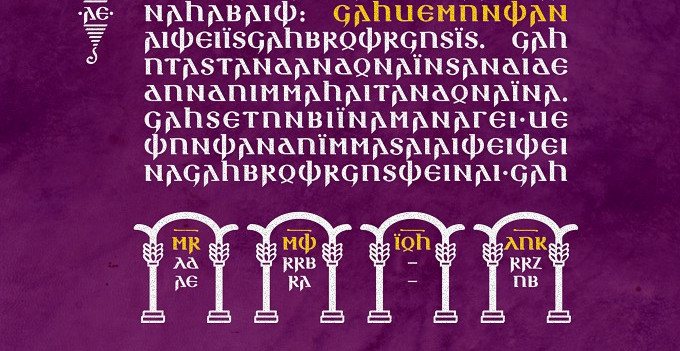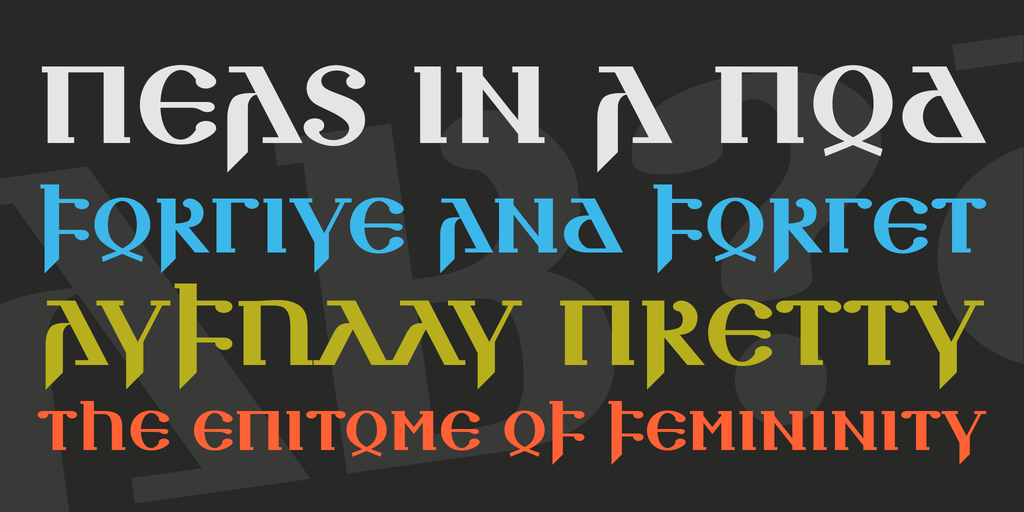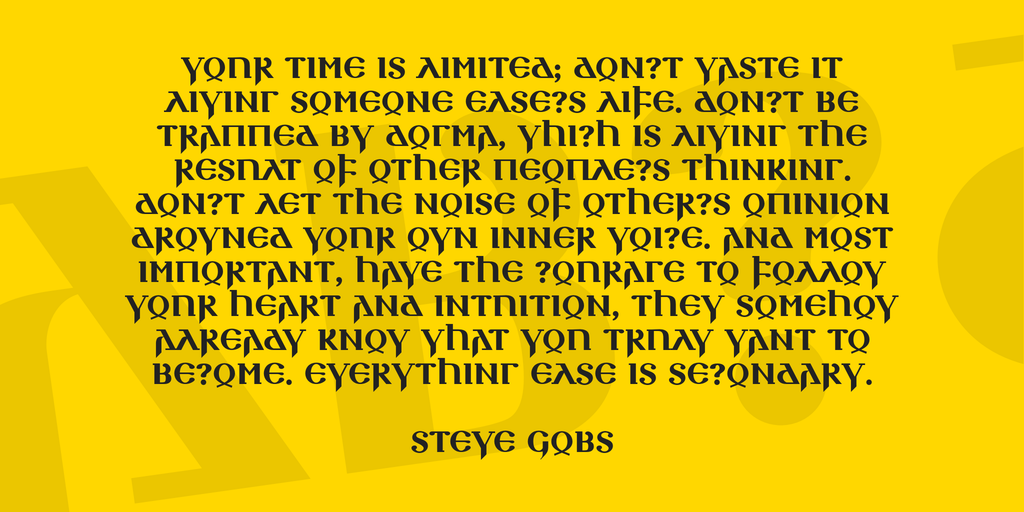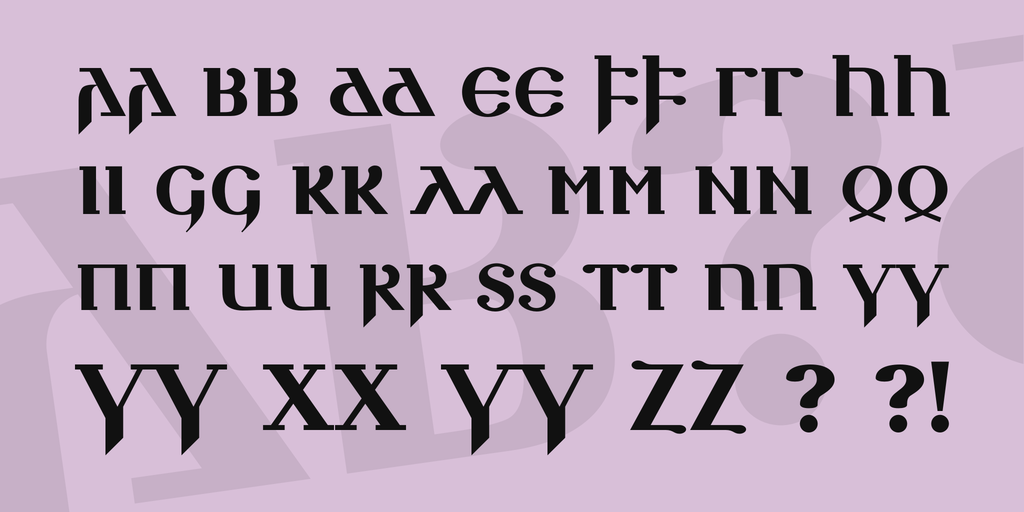
Silubr Font
Silubr (Goth. “silver”) is a bold and contrasting Gothic uncial script related to the hand script of ancient Gothic codices. Its name is derived from the silver ink used for the Codex Argenteus. Silubr is probably the most original of all the fonts offered here. It includes 35 characters. This is quite a modest number, but the missing part can easily be complemented from other bold typefaces (e. g. “Poster Bodoni”).
To allow writing with this font in programmes that don’t support the high Gothic Unicode range (as for example MS Word), the Gothic characters are mapped to the Latin range as well. And in order to render texts in Silubr that distinguish between upper and lower case letters, this font’s latin majuscules and minuscules are equally mapped with Gothic glyphs.
Silubr is compatible with those fonts offered here that have a more extenxive character set. If a text is set from Ulfilas or Skeirs into Silubr, characters not included in Silubr​—​such as accents​—​are simply omitted (instead of being displayed as boxes).
Further, Silubr makes use of the “hist” feature for historical text layout. If activated, a historically more original typeface is generated automatically: Spaces are omitted, punctuation is reduced to mid-dot and colon, and a diaeresis is added to an “I” at the beginning of a word (whilst in the mid of a word, at the beginning of a syllable, a diaeresis should already be set). In Order to make this feature available in Microsoft Word 2010 (which supports just a few OpenType features, including the stylistic sets), I’ve added a copy of this feature as stylistic set “ss05”. The following illustration shall demonstrate both.